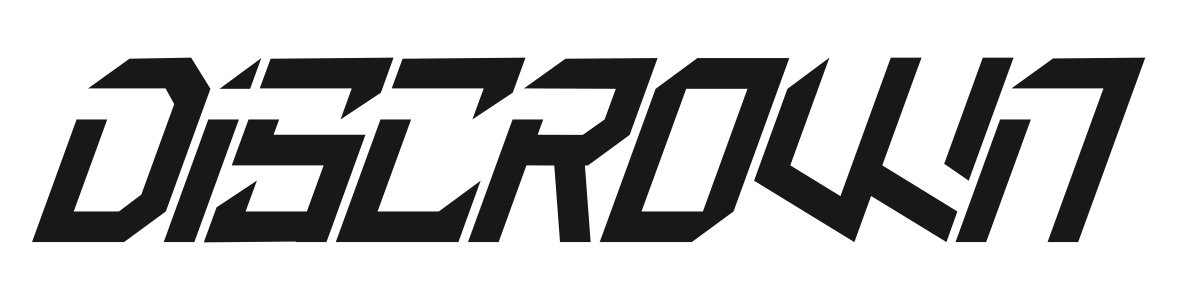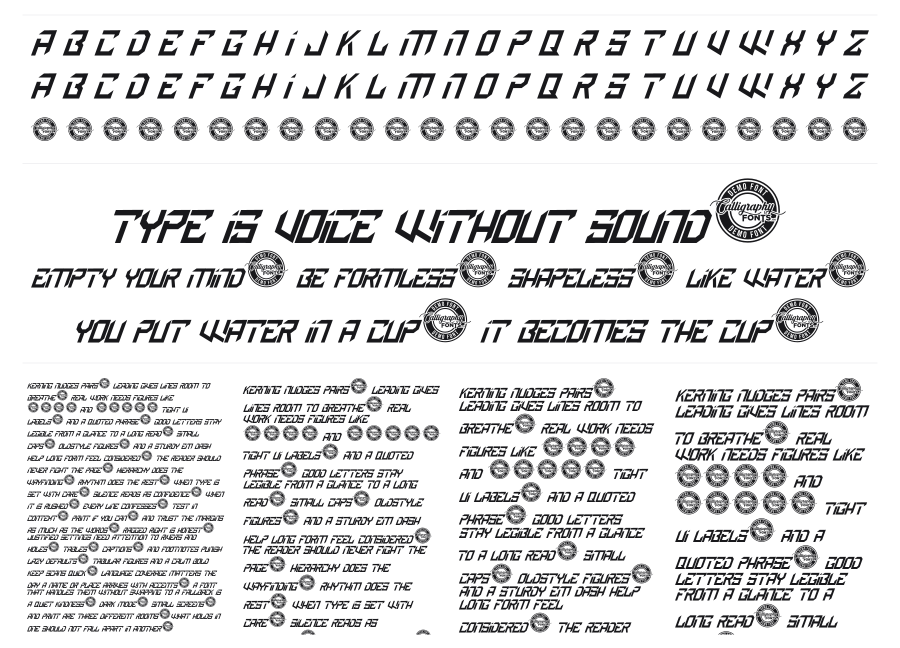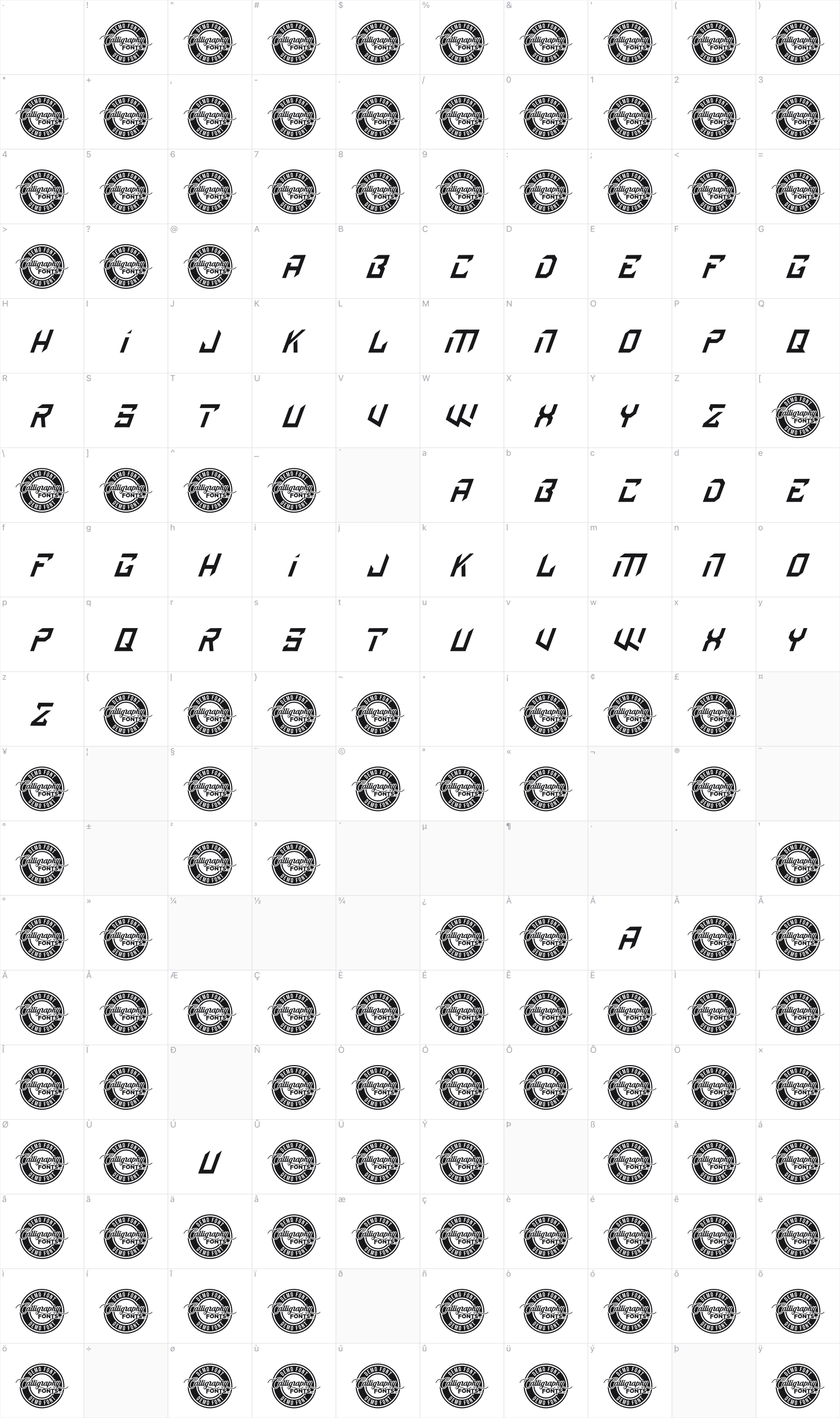
Discrown
Discrown is a bold stencil display font defined by sharp diagonal cuts and an aggressive italic lean. The military-industrial construction is pushed into sci-fi territory by the precision of the geometric slices through each stroke. Strong at large sizes for gaming titles, action posters, and streetwear graphics.